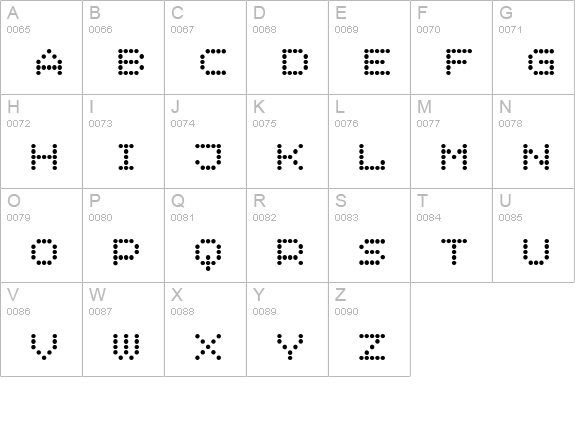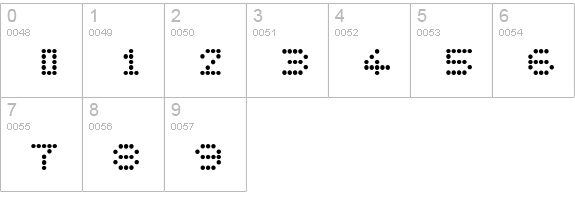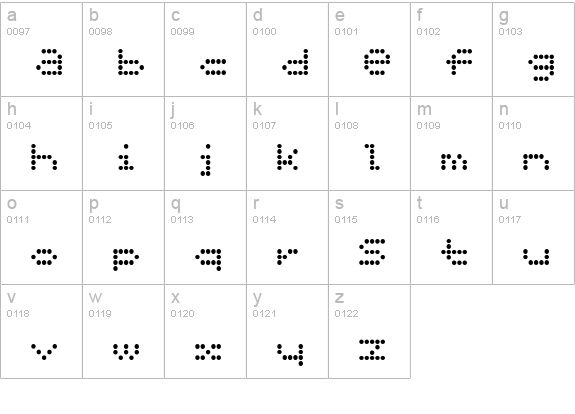
SemaforPlain Font Details
SemaforPlain font is a stunning display typeface that exudes elegance and simplicity. With its clean lines and minimalist design, this font is perfect for adding a touch of sophistication to any project. Whether you're working on a logo, a branding project, or even a poster, SemaforPlain font will make your text effortlessly stand out. What sets SemaforPlain font apart is not just its beautiful aesthetics, but also its accessibility. This font is freely available to download at FontsMarket.com, making it a fantastic option for designers on a budget. You don't have to compromise on quality or style - SemaforPlain font offers both, without any cost attached. The versatility of SemaforPlain font is also worth mentioning. Its simplicity allows it to seamlessly blend into various design themes, whether it be modern, retro, or even futuristic. The bold yet refined nature of this font ensures legibility and impact, ensuring that your message gets across loud and clear. SemaforPlain font is a true gem for designers and creatives alike. Its timeless appeal and freely accessible nature make it a must-have in your font collection. So why wait? Discover the beauty of SemaforPlain font today and elevate your designs to new heights. Download it for free at FontsMarket.com and let your creativity soar.